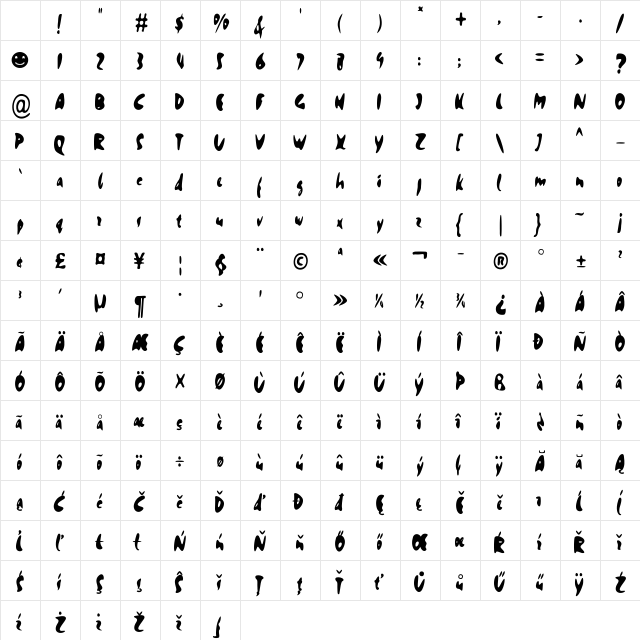
Bodyguard is a composed and adaptable typeface that performs quietly and consistently across a wide range of design contexts.
Pro Tip: Use Bodyguard in both headline and body roles to test its range before committing to a single application.